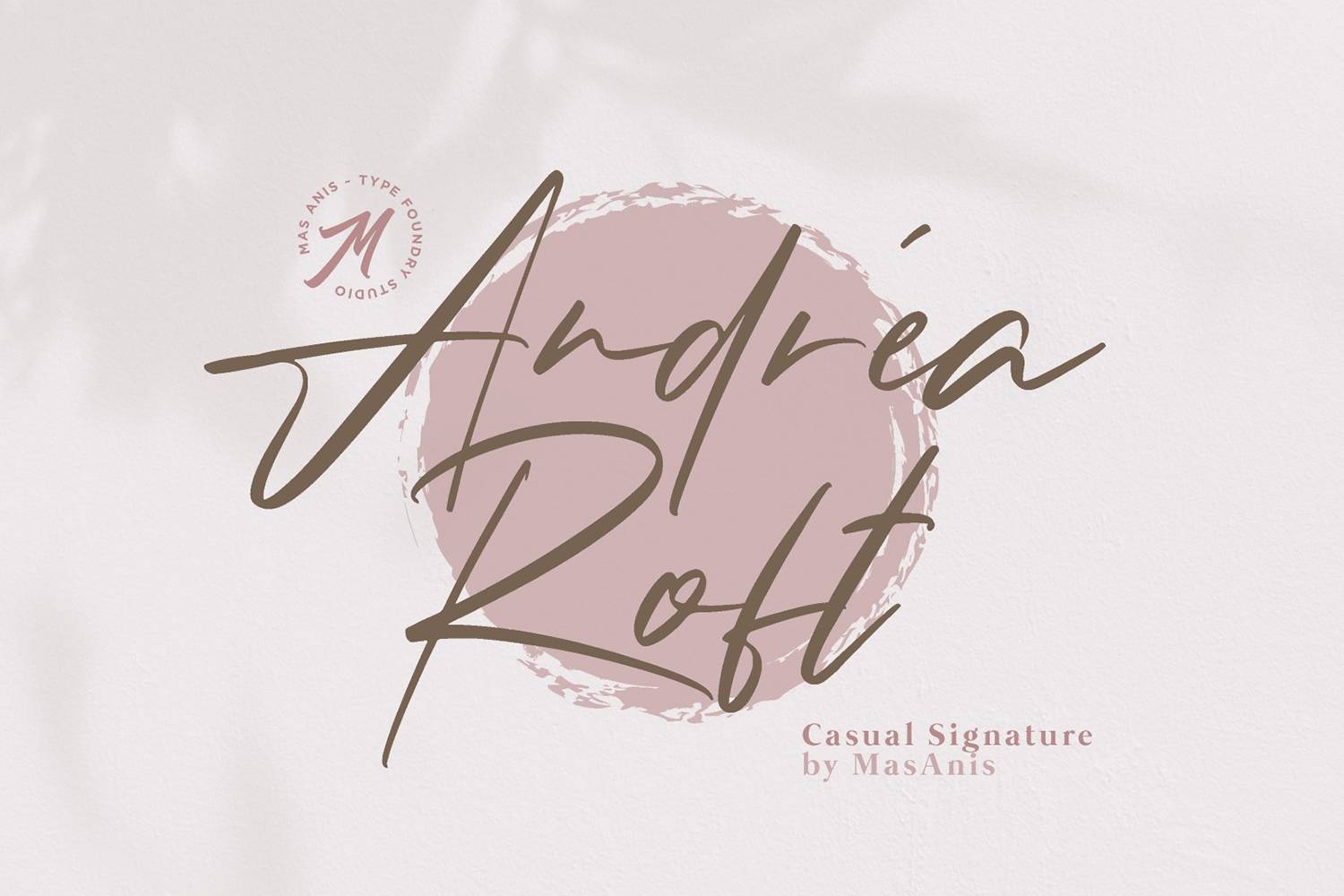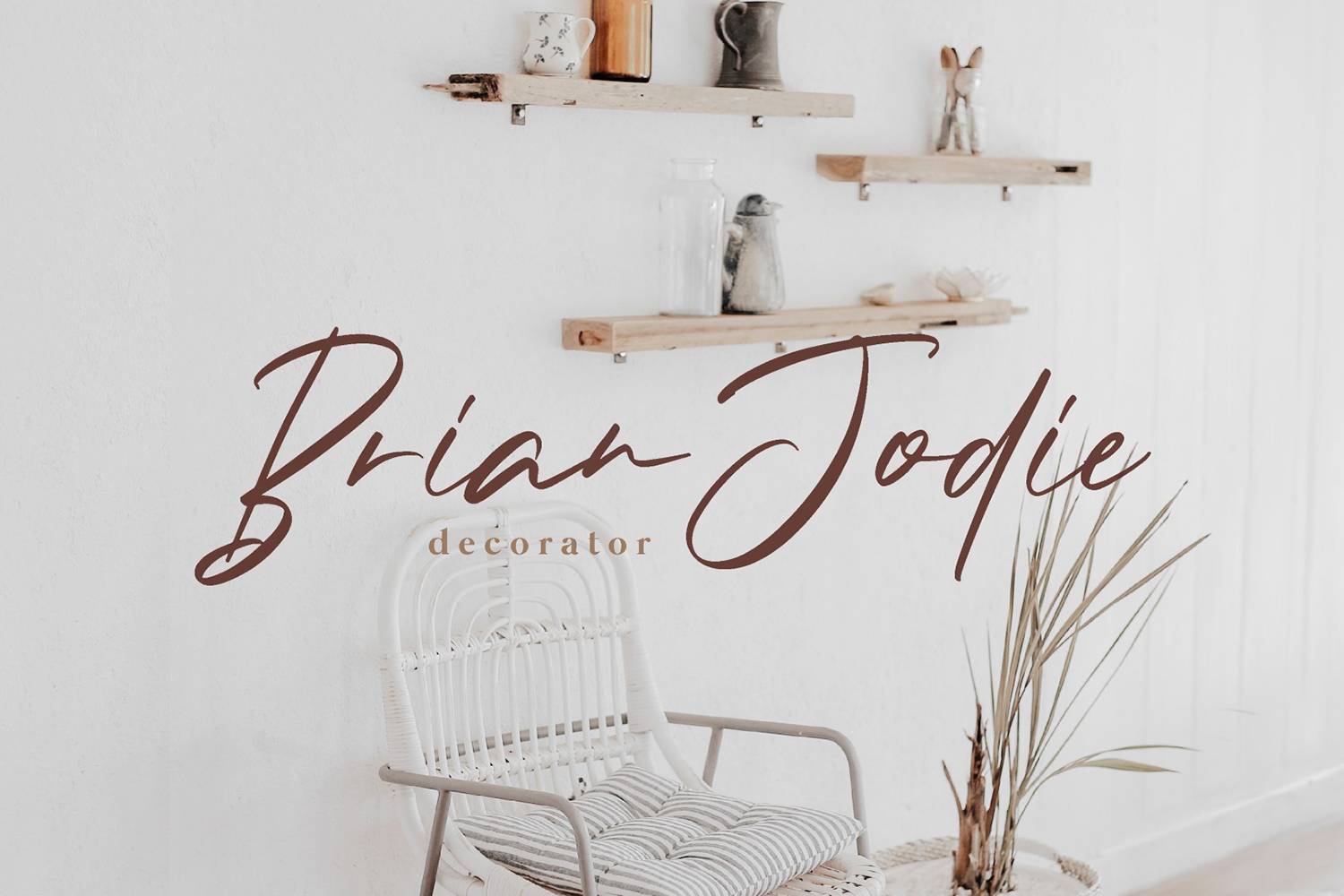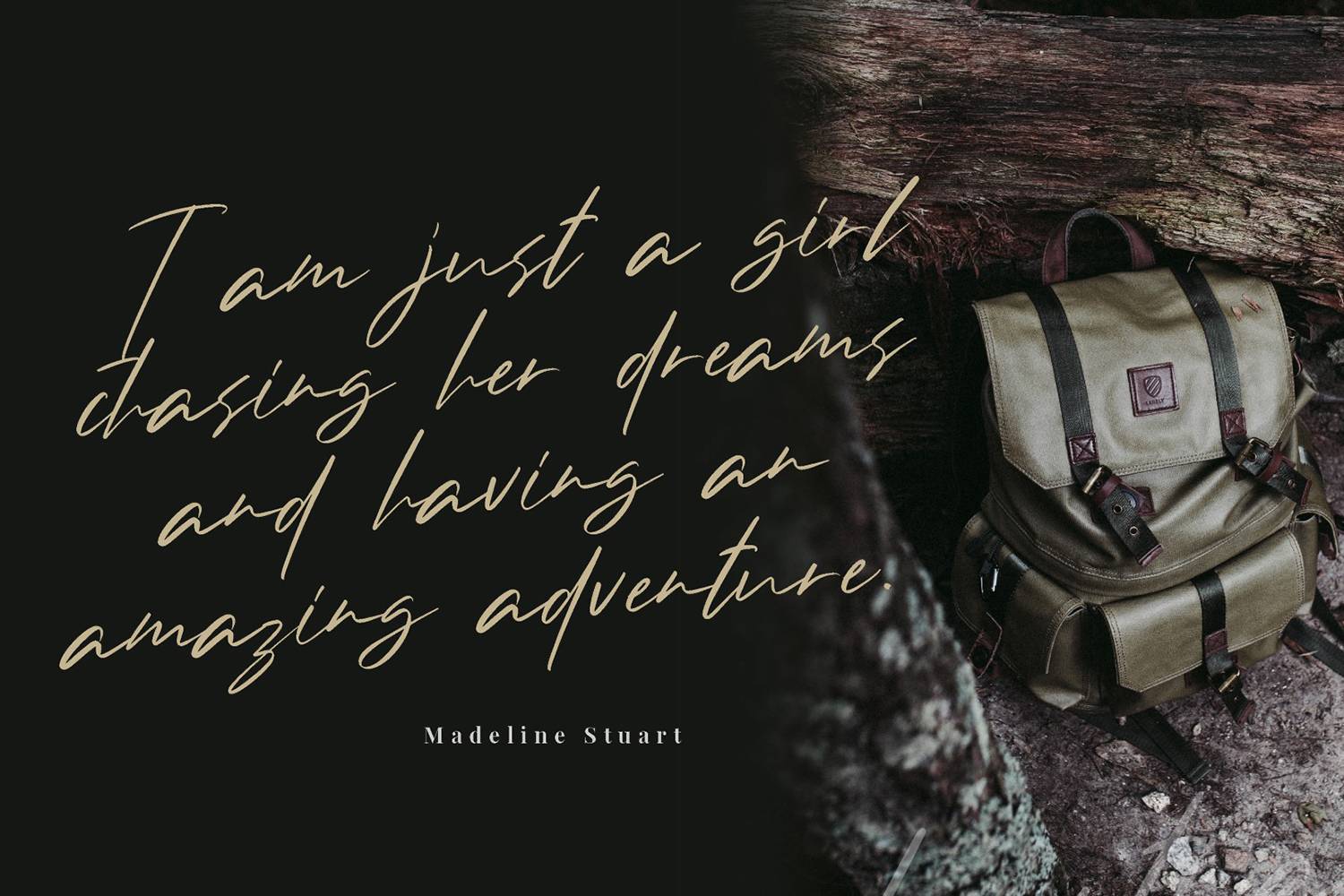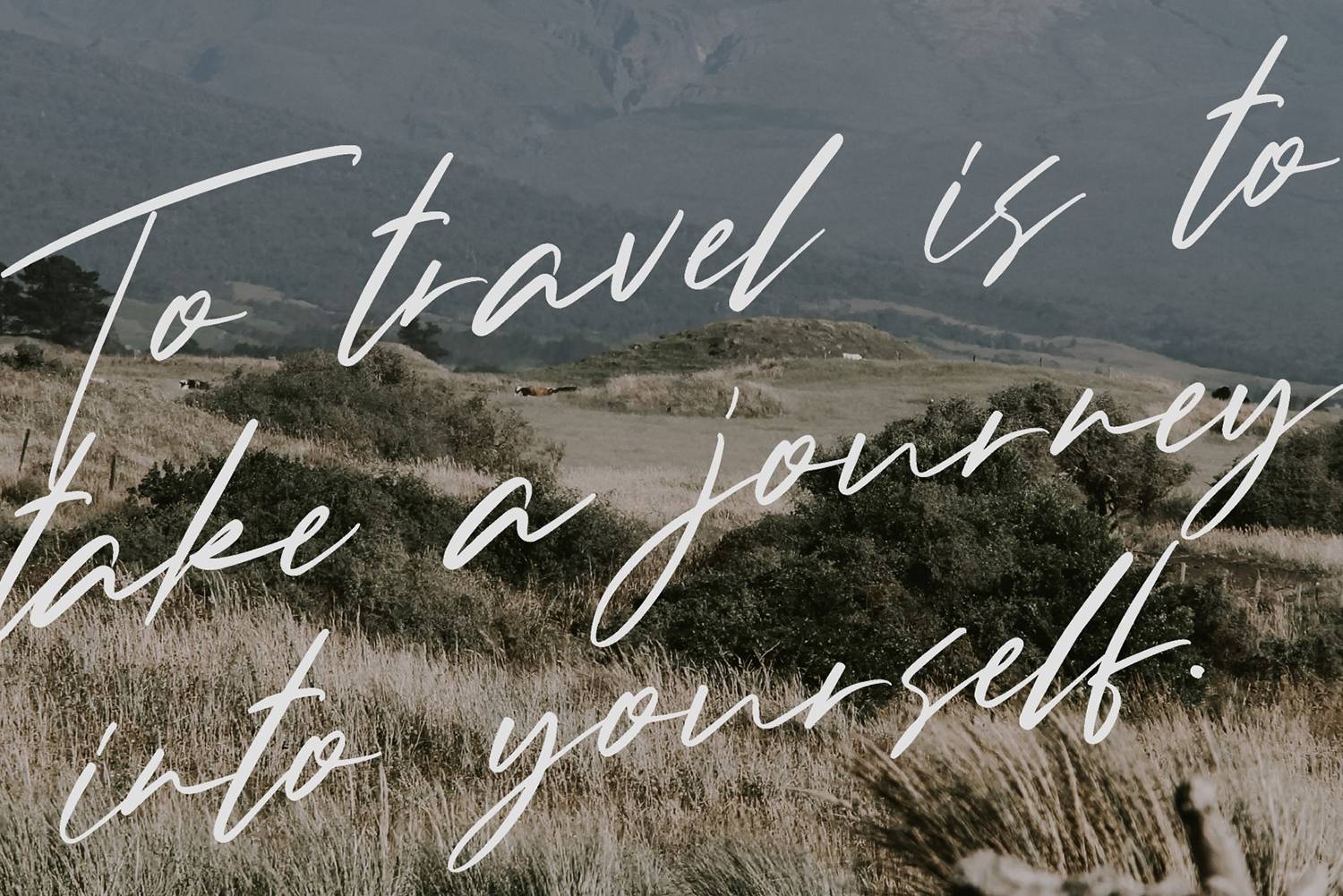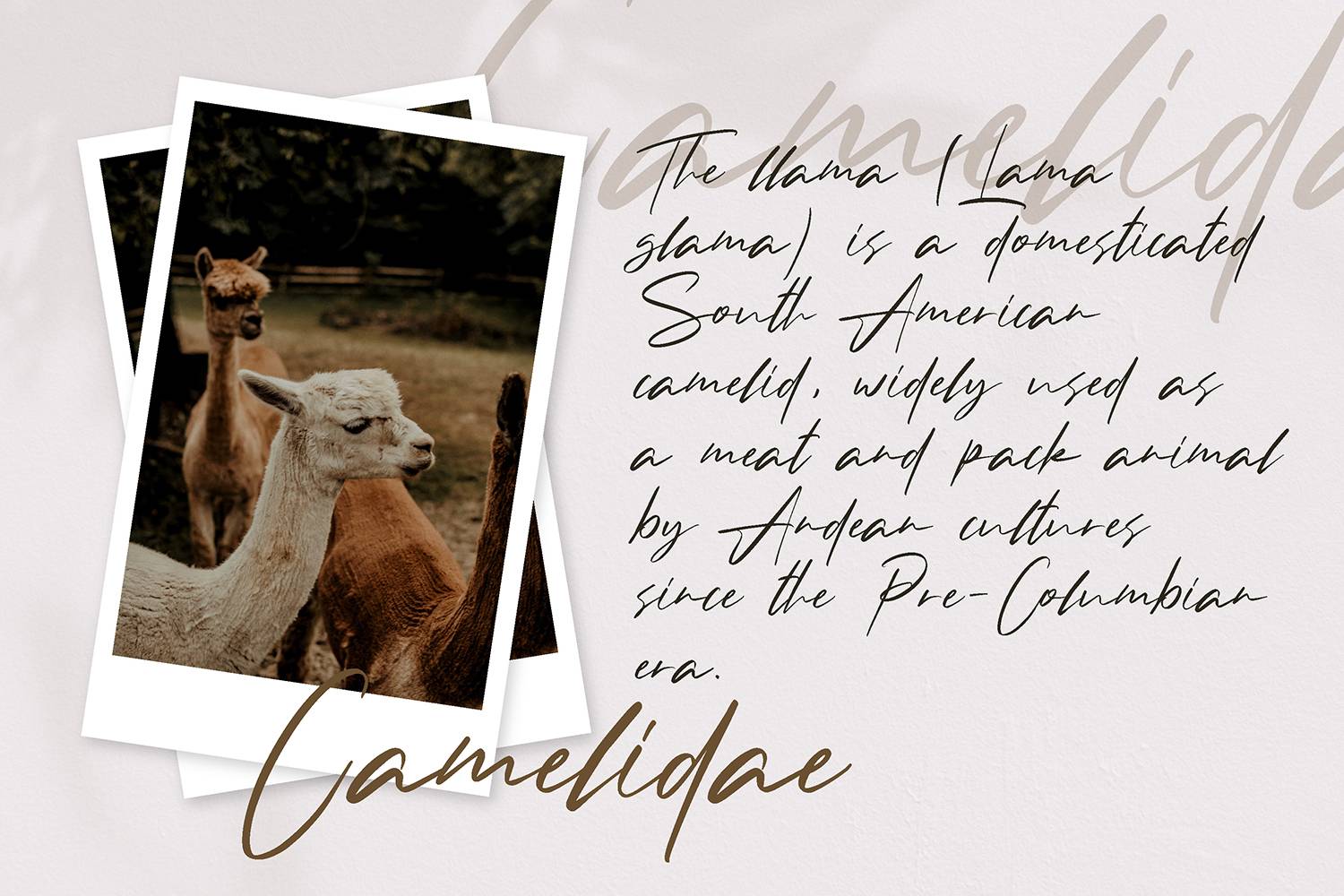
Andrea Roft is a delicate, handwritten script font with an elegant and personal touch. Its thin, flowing strokes and slightly irregular letterforms give it a natural, artistic feel, making it perfect for invitations, branding, and projects that want to convey warmth and sophistication. This font works well in creative and intimate designs where a stylish yet approachable look is desired.
Andrea Roft Font
About Andrea Roft Font
| Font family | Andrea Roft Font |
| Designer | Muhammad Naufal Anis |